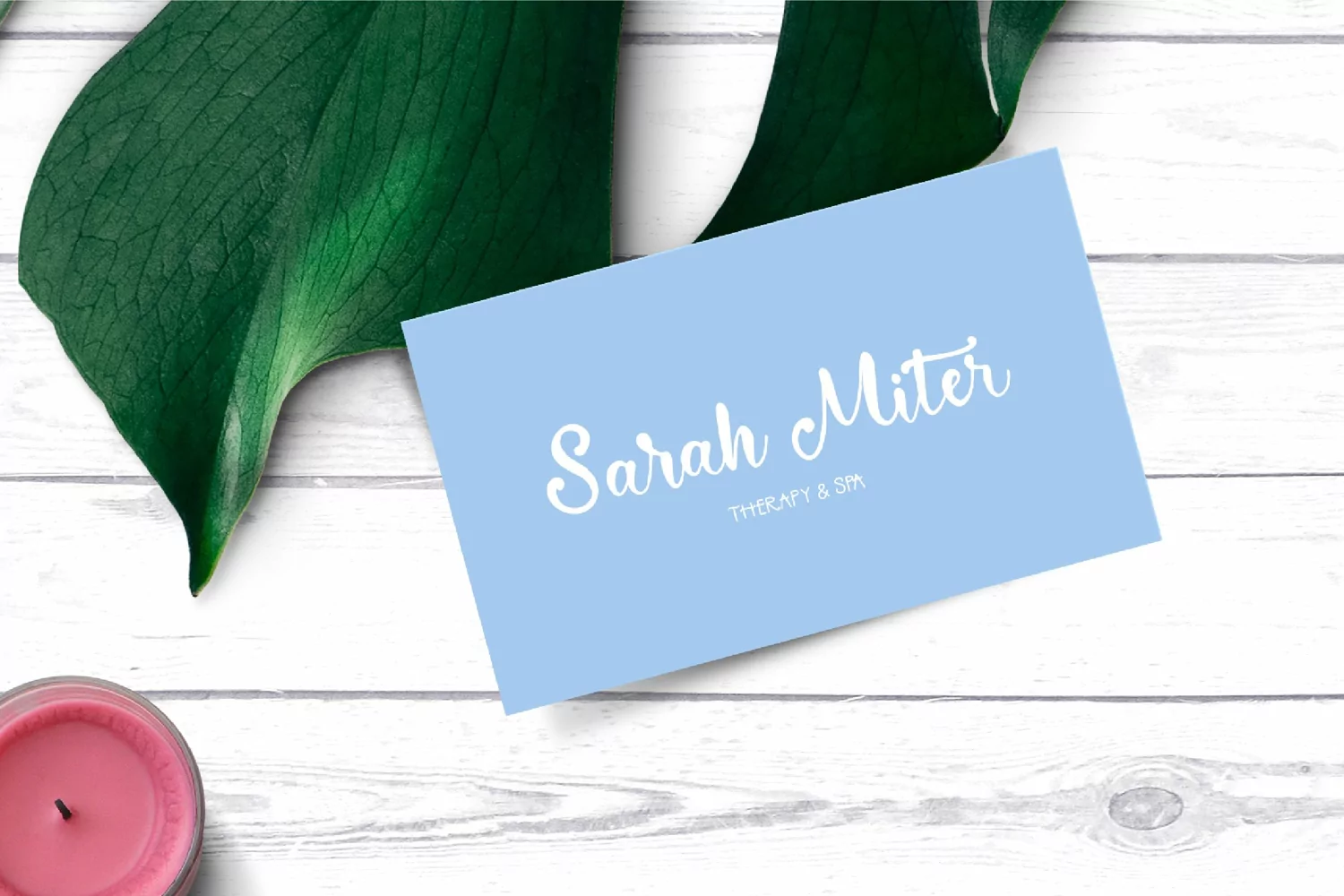
Introducing
Everyday Loving a fancy modern calligraphy font with a bunch of ligatures to embellish your designs with. This font will add a unique touch to all your designs and is ideal for logos, quotes, photo overlays, business cards, prints, greetings, etc.